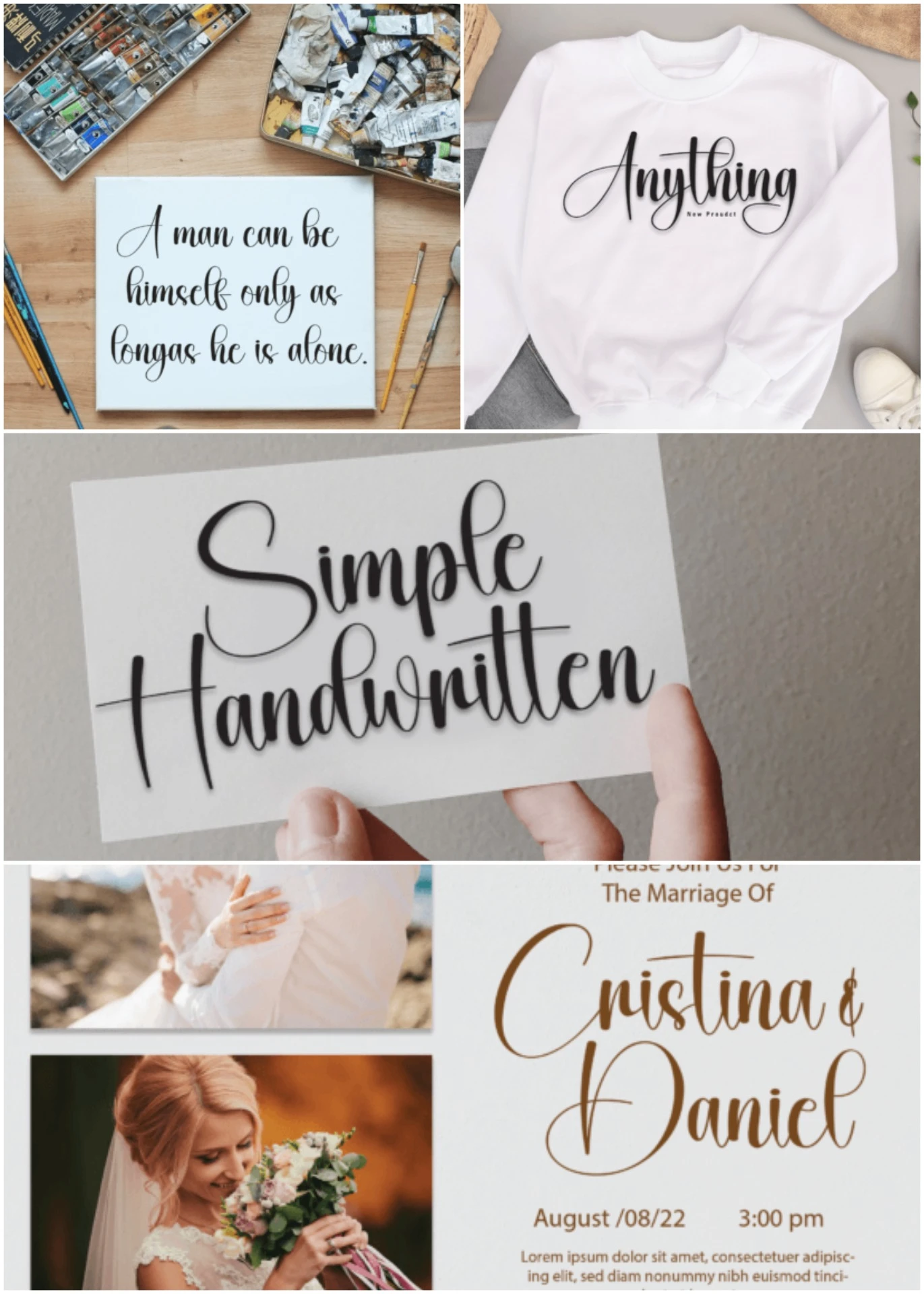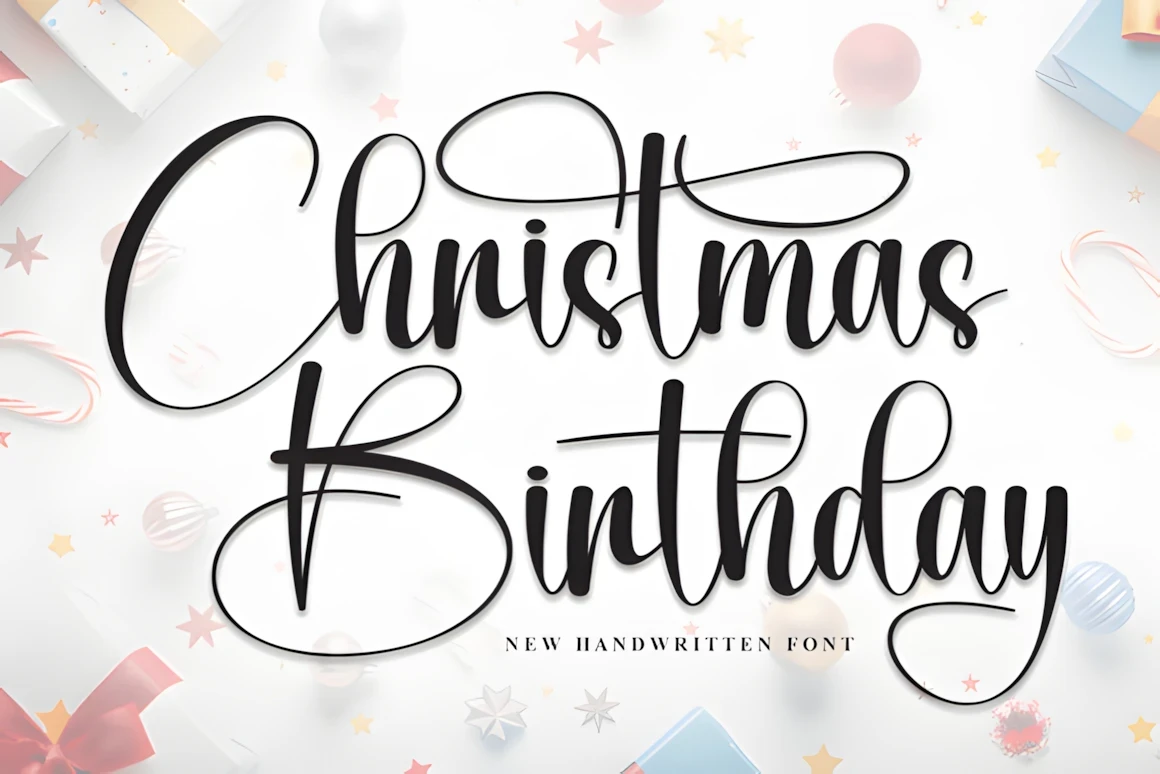
Christmas Birthday Font is a cool handwritten script that looks fancy. It has smooth, flowing lines and a nice handwritten feel, giving warmth and a creative spark to your work. It’s got a sophisticated but personal touch that fits well with both modern and classic designs.
This font is a great pick for wedding invites, birthday cards, greeting cards, and holiday notes because it looks elegant. It’s also good for logos, product packaging, and business branding, giving them a unique, handwritten signature look. It has delicate strokes and a cozy vibe, so you can use it as a holiday font to designs that feel festive and inviting.
If you’re working on invitations, branding stuff, or holiday projects, Christmas Birthday Font adds a refined handwritten touch that makes every design pop.